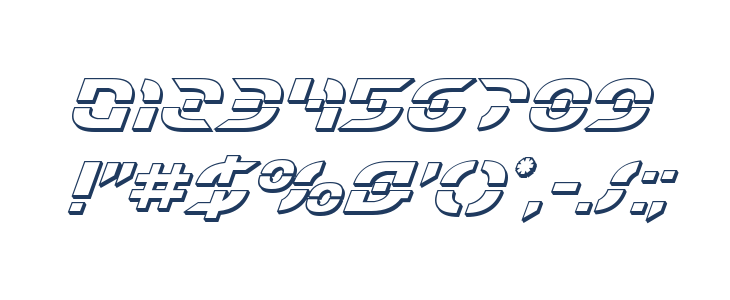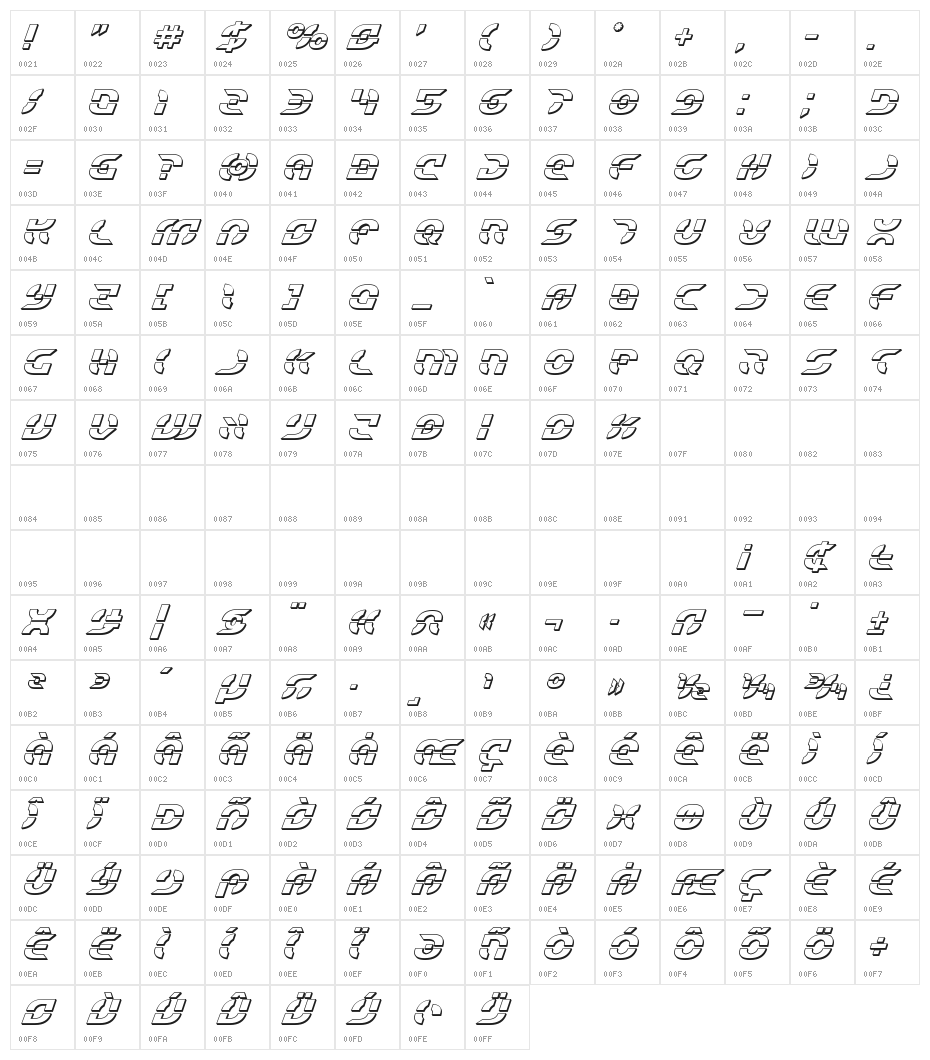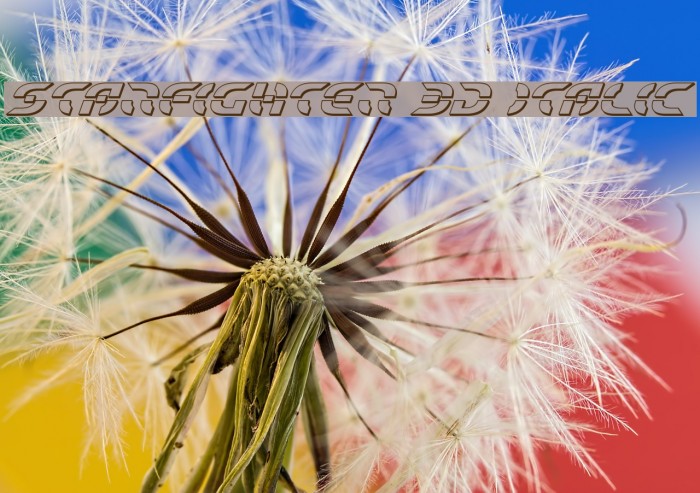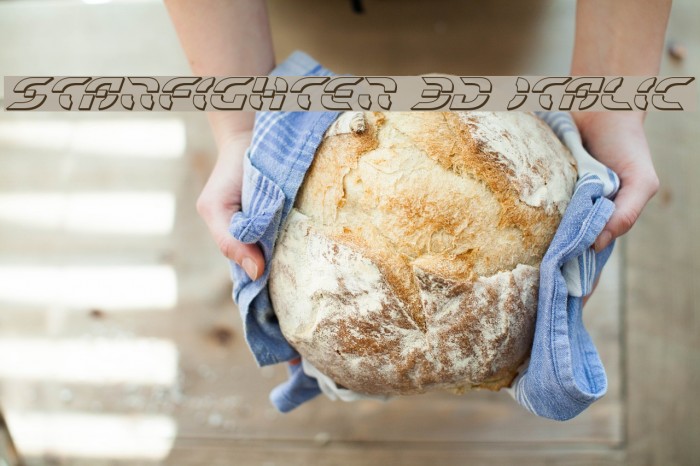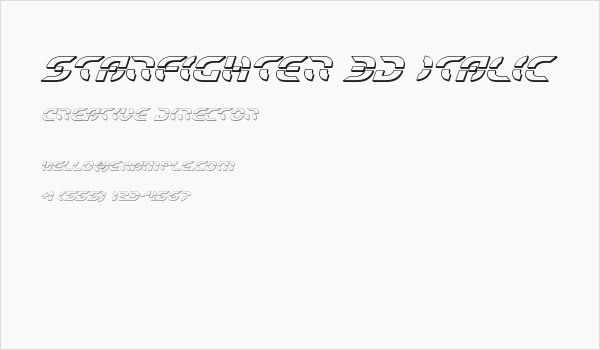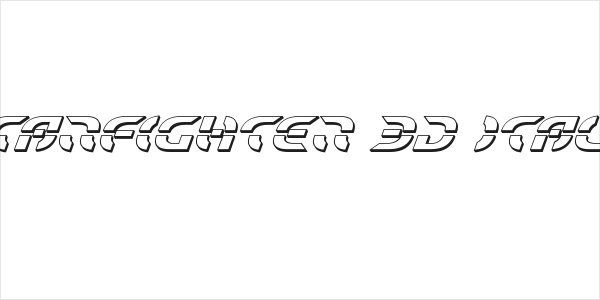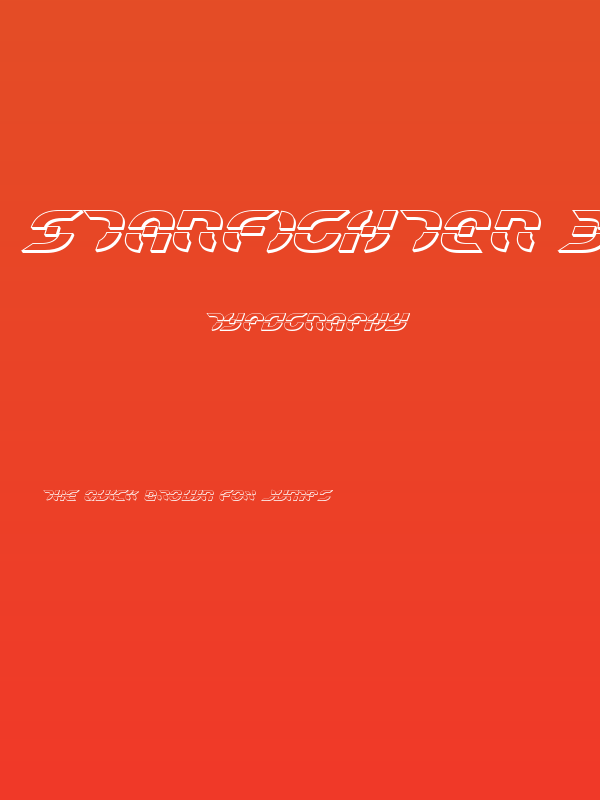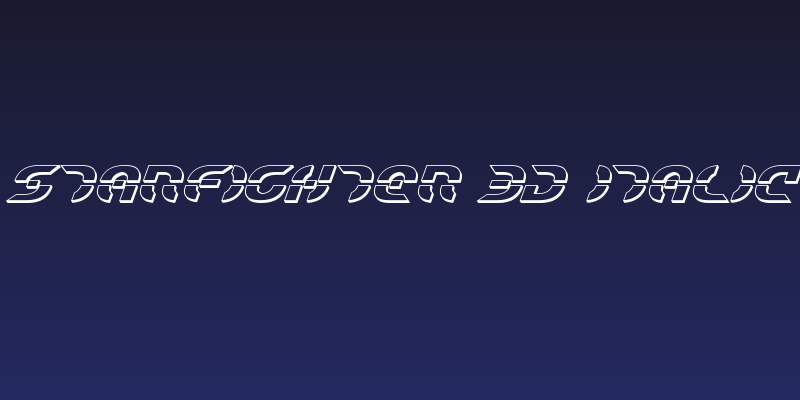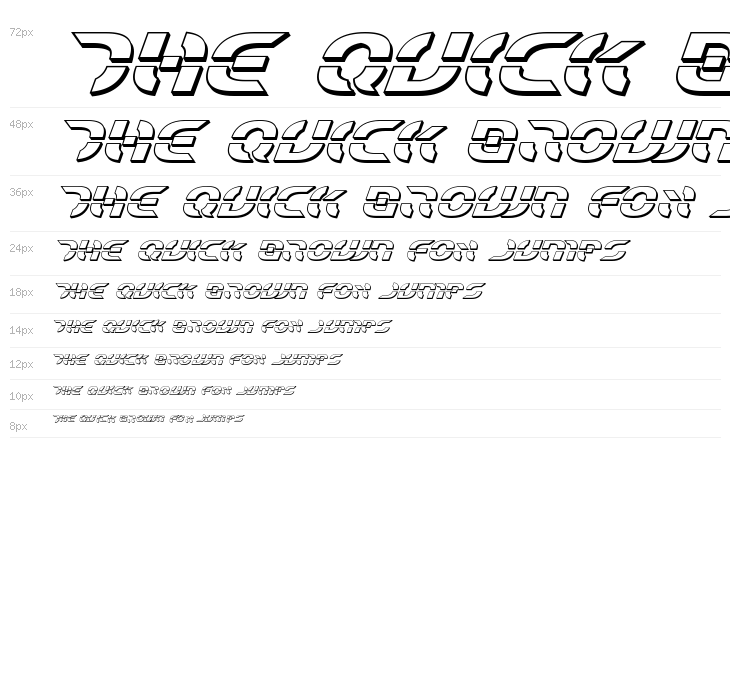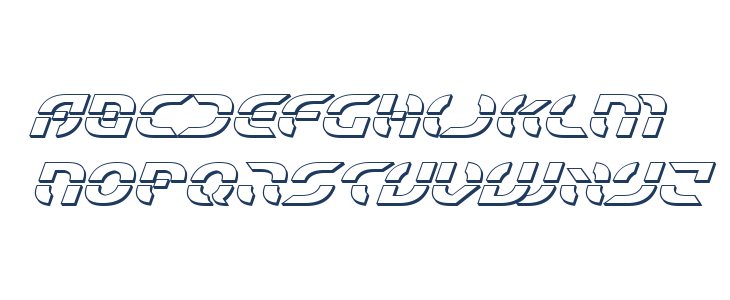
Starfighter 3D Italic Font
Starfighter 3D Italic Description
This font features a futuristic and dynamic design, characterized by its three-dimensional appearance and italicized style. The letters are constructed with bold, angular lines that create a sense of movement and energy. The geometric shapes and sharp edges give it a modern and tech-inspired look, making it stand out in any design. The uppercase and lowercase letters maintain a consistent style, while the numbers and special characters complement the overall aesthetic. The font's unique structure and style make it ideal for projects that require a bold and innovative visual impact.
| Proposed Projects | Ideal for sci-fi themed designs, video game titles, tech branding, and futuristic posters. |